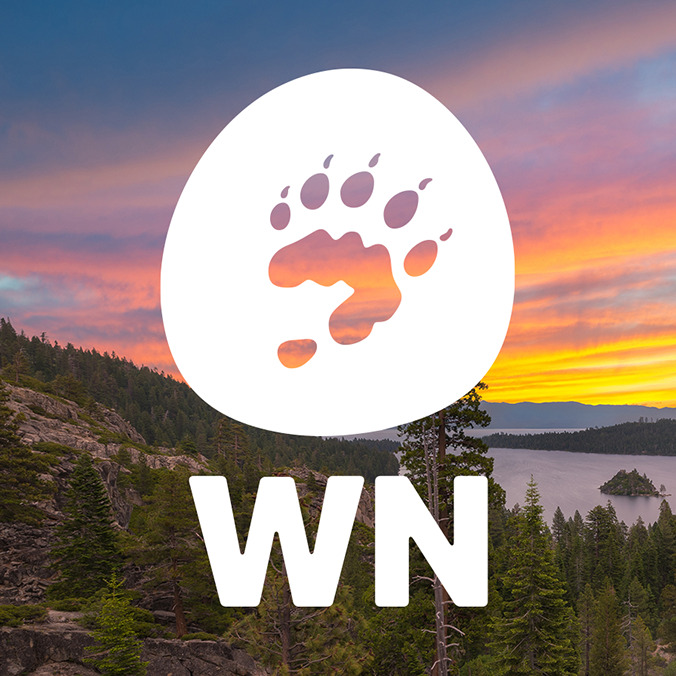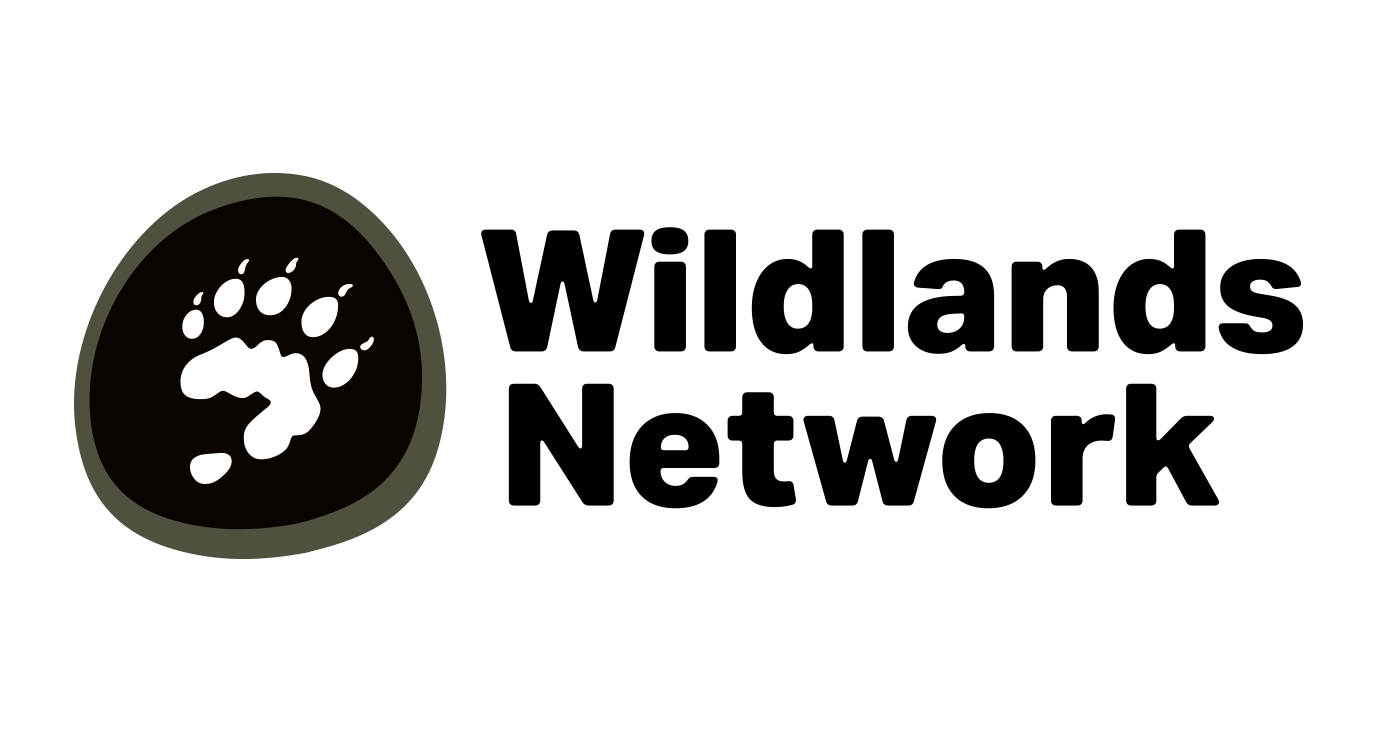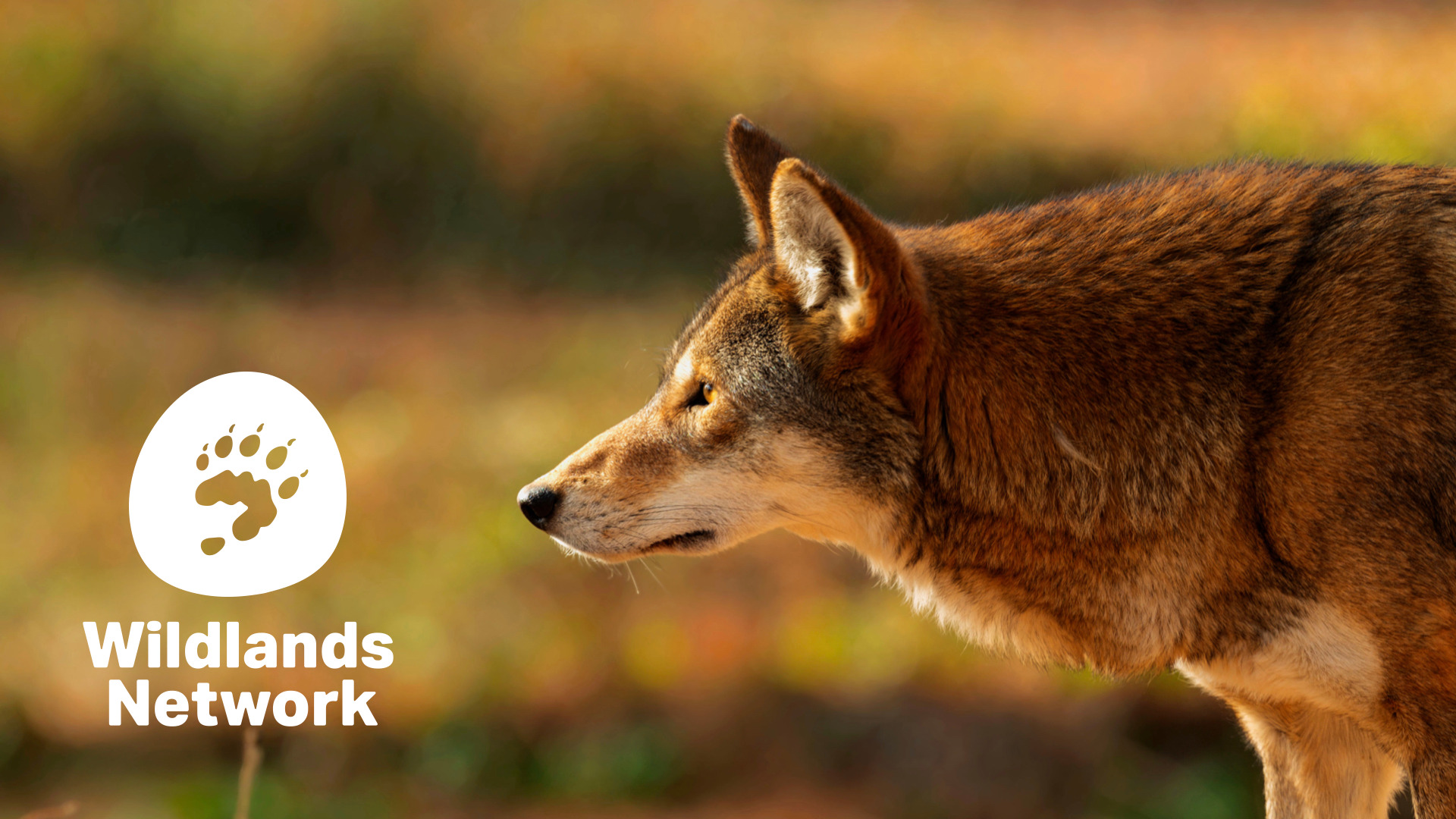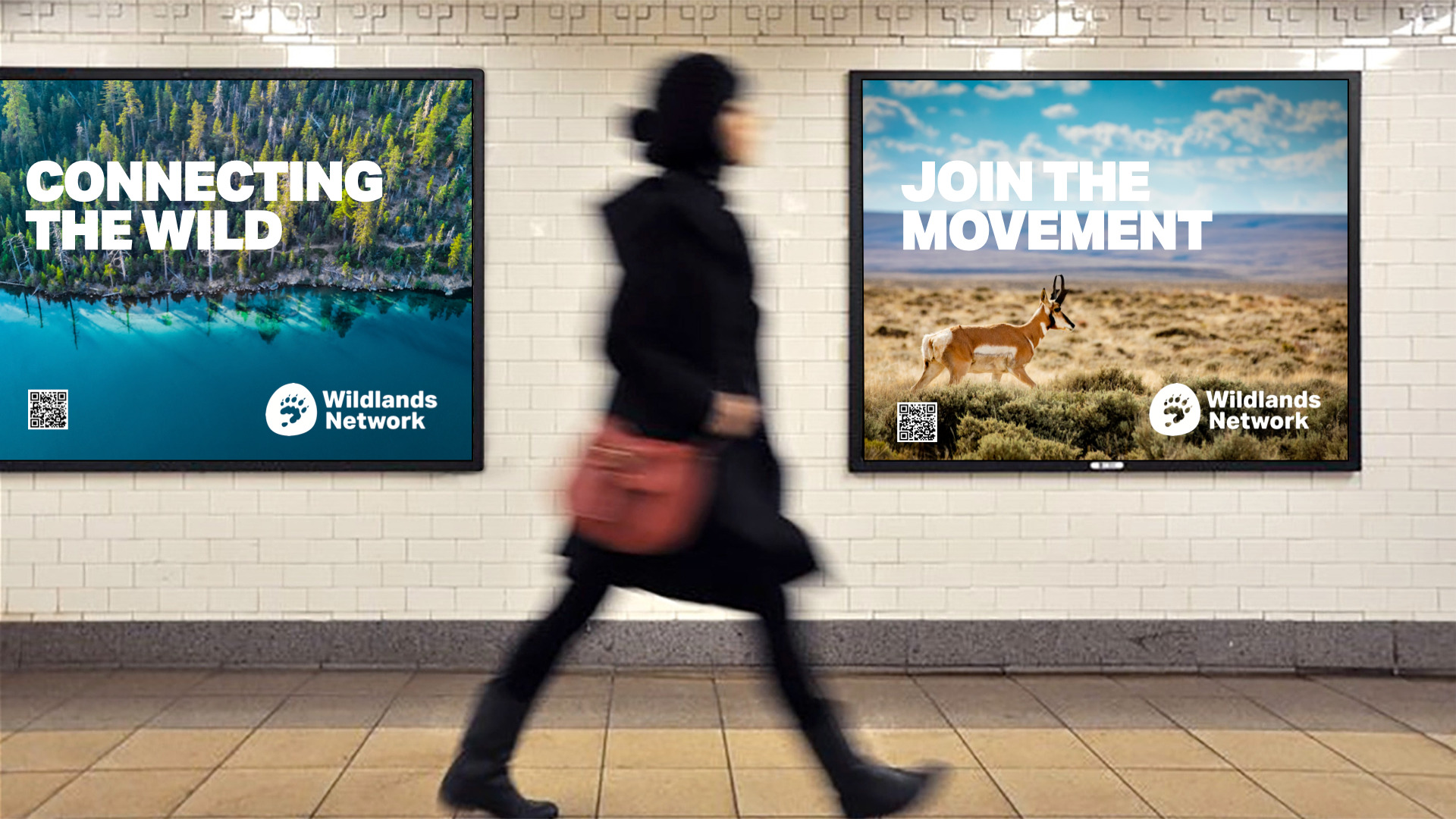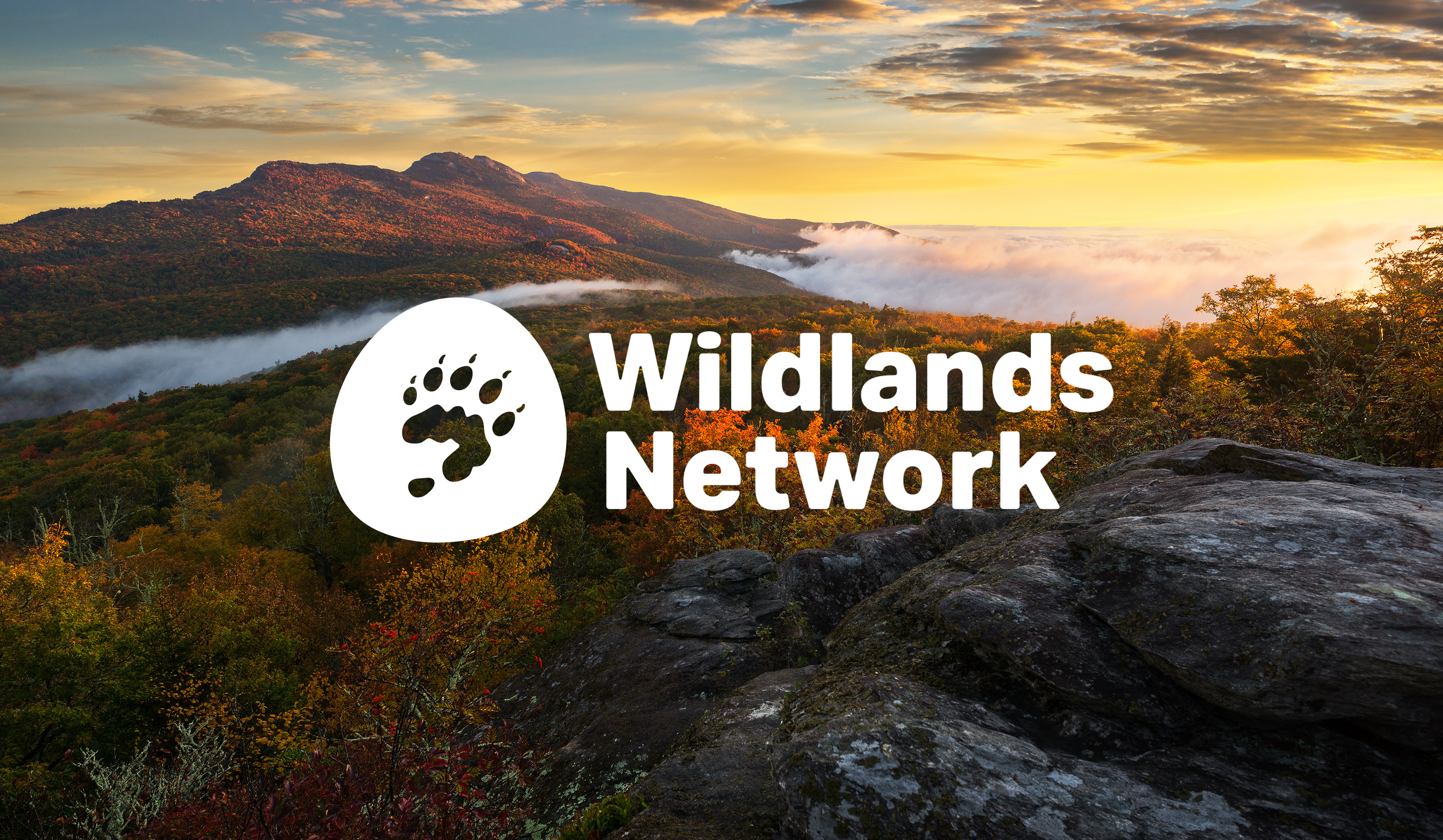
Wildlands Network
A Logo Refinement for Wildlands Network
Aktiv Grotesk used alongside the refined Wildlands Network logo on mobile devices
Vertical lockup of the Wildlands Network logo
Final logo lock-up in colour
Compact, vertical lockup of the Wildlands Network logo
Wildlands Network
A Logo Refinement for Wildlands Network
Aktiv Grotesk used alongside the refined Wildlands Network logo on mobile devices
Vertical lockup of the Wildlands Network logo
Wildlands Network’s logo was refined using a modification of Aktiv Grotesk to balance strength and clarity across lock-ups. Soft connections, inspired by the icon’s roundness and wolverine paw, create a cohesive, contemporary mark with lasting distinction.
Final logo lock-up
Comparison between refined logo and original typeface (Aktiv Grotesk)
Comparison between original logo, left, and the refined logo, right